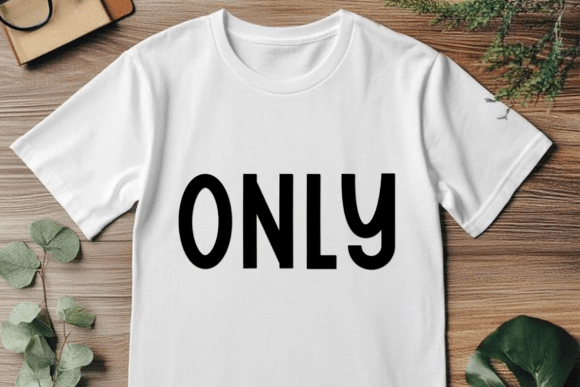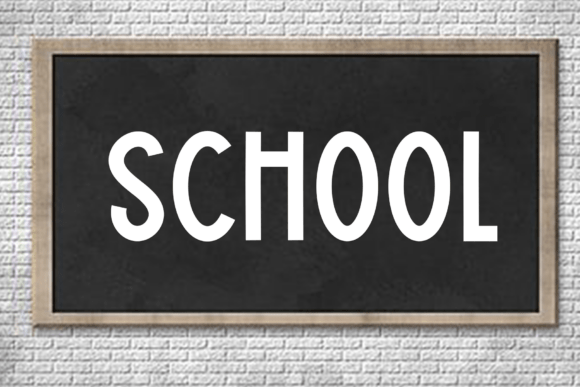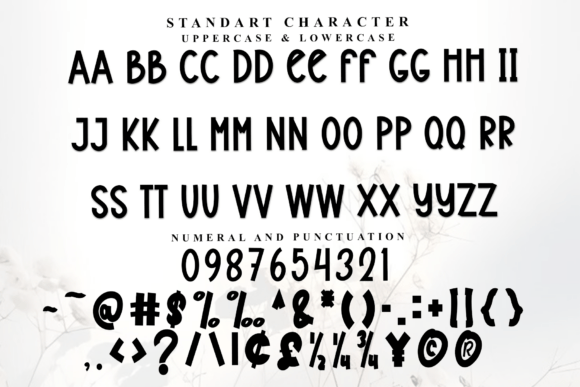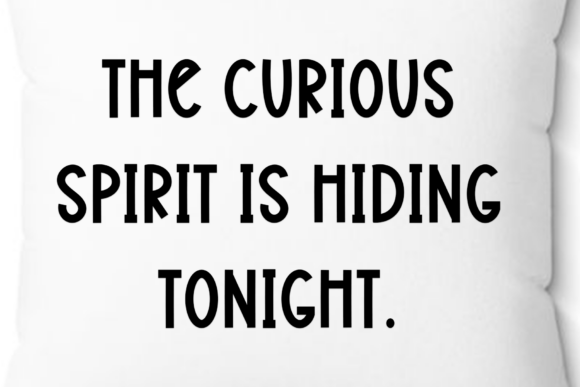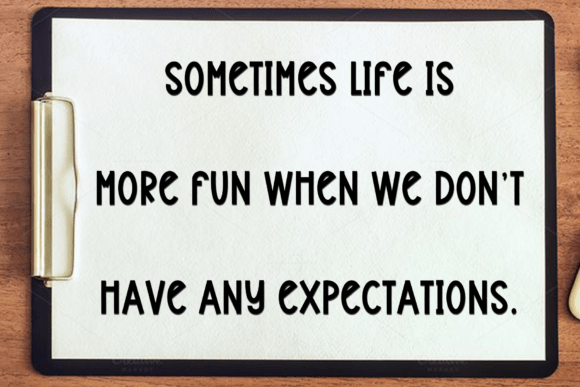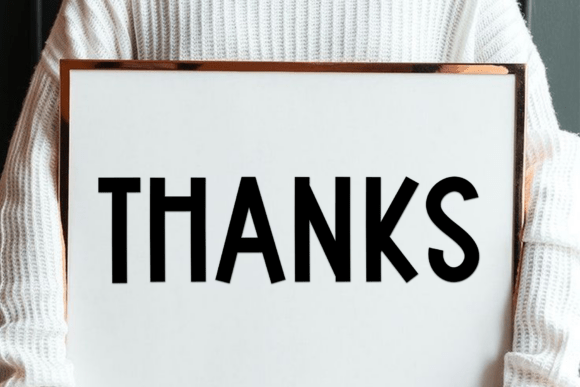
The Designer’s Delight: Bright Barbie Font
I’ll never forget the time I was working on a project for a client who wanted a font that was both playful and elegant. I had spent hours scouring the internet for the perfect font, but nothing seemed to fit the bill. That was until I stumbled upon the Bright Barbie font. Its unique, soft touch immediately caught my eye, and I knew I had found the one. In this article, I’ll share my experience with the Bright Barbie font, its features, and how to make the most of it in your designs.
A First Impression: What I Love About Bright Barbie
The Bright Barbie font has quickly become a favorite in my design toolkit, and for good reason. Here are some of the things that I love about it:
- ✨ Unique and eye-catching design: The font’s distinctive strokes give it a special character that sets it apart from more traditional fonts.
- ✅ Versatile and meaningful: With various characters and a natural font style, Bright Barbie is perfect for a wide range of design projects, from crafts to creative works.
An Honest Review: The Not-Perfect-but-Almost There
While I adore the Bright Barbie font, it’s not without its quirks. Here are a few things to keep in mind:
- 🤔 Limited multilingual support: While the font supports several languages, it may not cover all the languages you need. Double-check the character set before committing to a project.
- ⚠️ No italic or oblique versions: If you need an italic or oblique version of the font, you might need to look elsewhere or get creative with font manipulation.
The Story Behind Bright Barbie
The Bright Barbie font was designed with the intention of creating a unique, eye-catching font that would add a touch of elegance to any design. Inspired by the classic Barbie doll, the designer aimed to create a font that was both playful and sophisticated. The result is a font that is perfect for a wide range of creative projects.
| What is the Bright Barbie font best used for? | The Bright Barbie font is perfect for design projects, crafts, and other creative works that require a unique, eye-catching font. |